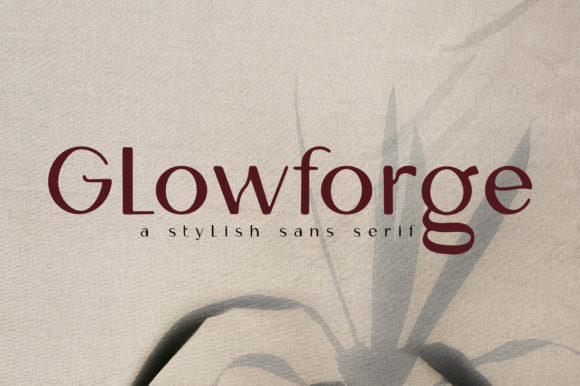
Journey into the realm of visual enchantment with Glowforge, a sans serif font family that dances with elegance and simplicity. Inspired by the artistry of letterheads, Glowforge is a captivating typographic creation.
Crafted with delicate precision, Glowforge finds its strength in balance and variation. Its strokes, not too thin nor too thick, caress the page, inviting the eyes to linger and explore. Each character is a testament to the artistry of its designer, Choirulcreator, who breathed life into this font with a vision of enhancing the beauty of your creative endeavors.
Embrace Glowforge's versatility and witness how effortlessly it transforms your designs. Whether you're crafting a personal letter, designing a corporate brochure, or creating a digital masterpiece, Glowforge is your trusted companion, ready to elevate your words and make them shine.
With Glowforge, the possibilities are endless. Dive into the world of branding and let Glowforge lend its charm to your logos and business cards. Its clean and modern lines will effortlessly elevate your brand's identity, leaving a lasting impression on your audience.
Delve into the world of publishing and watch as Glowforge brings life to your book covers, magazine layouts, and e-books. Its balanced structure and varied strokes create a reading experience that is both visually captivating and easy on the eyes, inviting your readers to immerse themselves in your stories.
Glowforge's allure extends to the digital realm as well. Unleash your creativity in web design and social media graphics, allowing Glowforge's elegance to enhance your online presence. Its crisp lines and clear shapes will ensure that your message is conveyed with impact and clarity.
Indulge in the sensory delight of Glowforge, a font that whispers sophistication and grace. Experience the joy of seamless readability and let your words flow effortlessly across the page, leaving a trail of beauty in their wake.